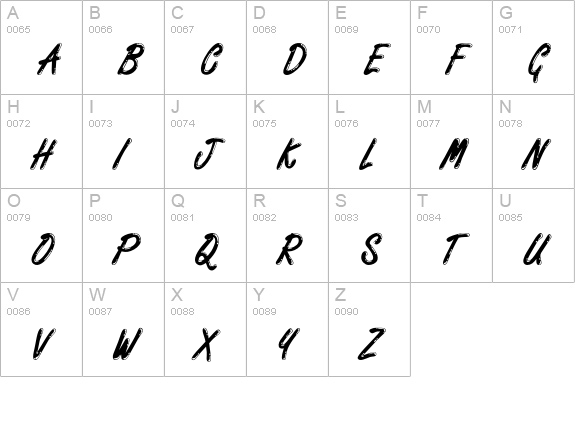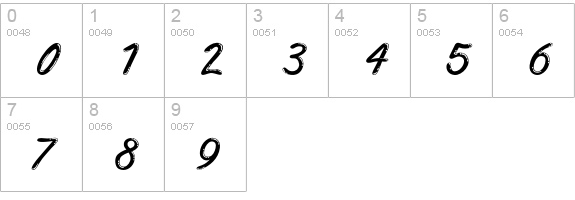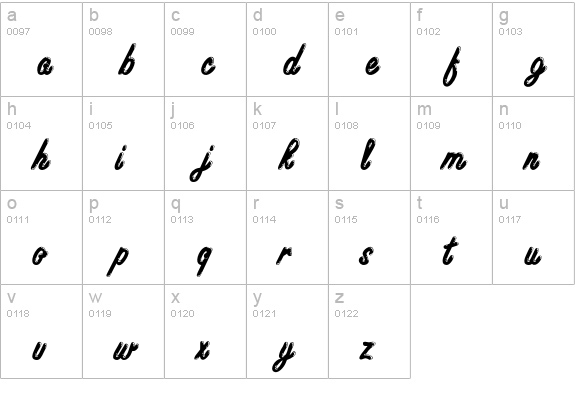
CasinoFont Font Details
Introducing CasinoFont, a stylish and sophisticated font perfect for adding a touch of glamour and excitement to your design projects. This sleek and modern typeface features a unique blend of sharp edges and elegant curves, making it ideal for creating eye-catching headlines, logos, and more. CasinoFont exudes a sense of luxury and sophistication, making it the perfect choice for projects that require a touch of high-end elegance. Best of all, CasinoFont is available for free download at FontsMarket.com. Simply head over to the website to easily access this stunning font and elevate your designs to the next level. Whether you're working on a branding project, creating a poster, or designing a website, CasinoFont is sure to make a statement and leave a lasting impression. Download it today and let your creativity shine with this exquisite typeface.